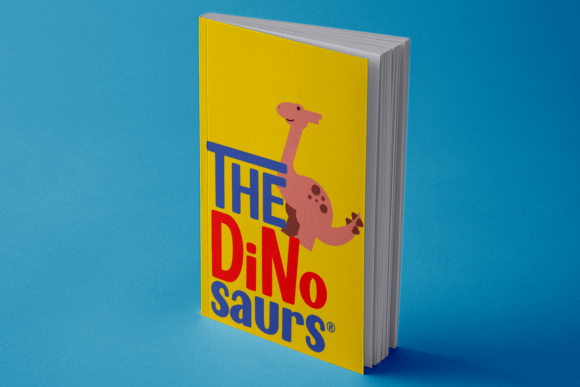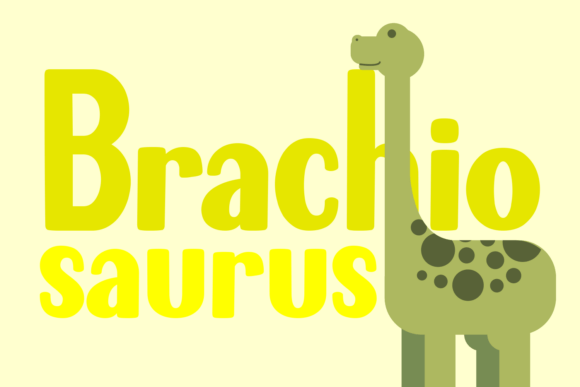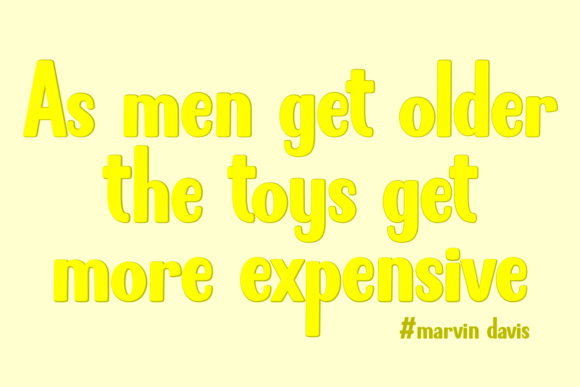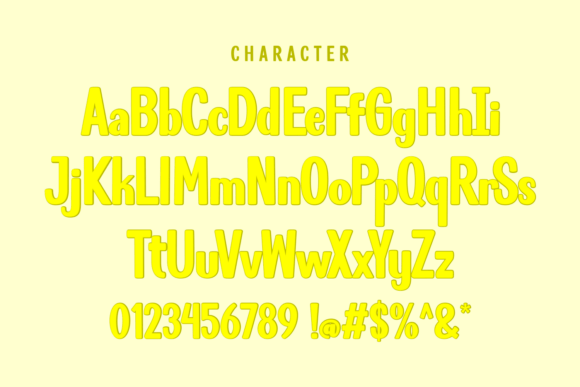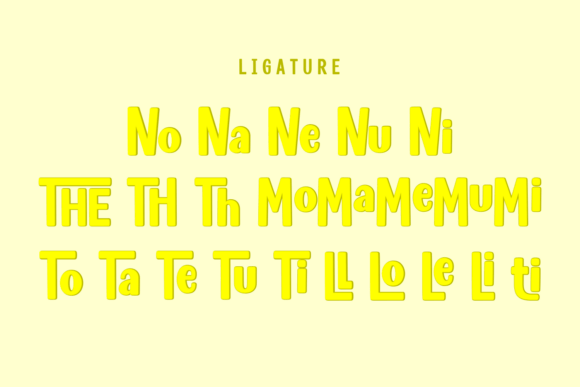
The Roar of Creativity: Unleashing the Fun of Dinotoys Font
Who among us hasn’t been inspired by the sheer excitement of childhood? Remember the thrill of unwrapping a new toy or discovering a hidden treasure in a favorite book? For designers, capturing that sense of wonder and enchantment is a constant quest. And sometimes, all it takes is a font that speaks directly to our inner child.
Enter Dinotoys Font, a delightful display typeface designed to bring a smile to kids’ faces and a spring to designers’ steps. With its tall, rounded letterforms and lively bounce, this font is the perfect companion for any project that requires a dash of prehistoric charm. From toy packaging to educational materials, kids’ books to birthday invitations, Dinotoys Font is the ultimate tool for designers looking to tap into the magic of childhood.
Dinotoys Font Key Features
- Font Family: Dinotoys Font is a custom-designed font family, offering a unique and playful look.
- Unique Characteristics: Dinotoys Font features a distinctive, hand-drawn style with rounded edges and playful flourishes, adding a touch of whimsy to any design.
- Character Set: Includes a wide range of characters, including uppercase and lowercase letters, numbers, punctuation marks, and special characters.
Dinotoys Font Review
I recently had the chance to work with the Dinotoys Font, and I must say, it’s a unique addition to any design project. Here’s my honest take on this font.
- The Dinotoys Font is extremely versatile and can be used for a variety of projects, from children’s educational materials to packaging and branding.
- The font’s playful and imaginative nature is perfect for capturing the attention of kids and families.
- The font is highly customizable, allowing designers to adjust the colors, sizes, and styles to fit their specific needs.
- The font may not be suitable for formal or professional projects, as it can come across as too playful or immature.
- The font’s complexity may make it difficult to use in situations where readability is crucial, such as in small text sizes or in busy compositions.
Overall, the Dinotoys Font is a fun and creative addition to any design project. While it may have some limitations, its versatility and playfulness make it a great choice for projects that require a sense of imagination and wonder.
For the best results, use Dinotoys Font for titles, headings, and short text elements.
Experiment with different font sizes and colors to create visually appealing designs.
Dinotoys Font is ideal for children’s educational materials, party invitations, and other fun and playful projects.